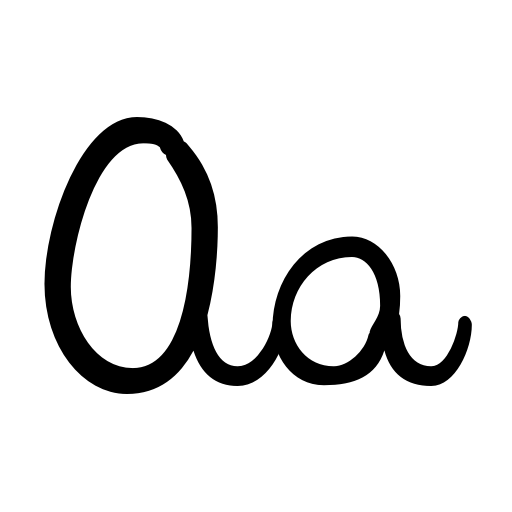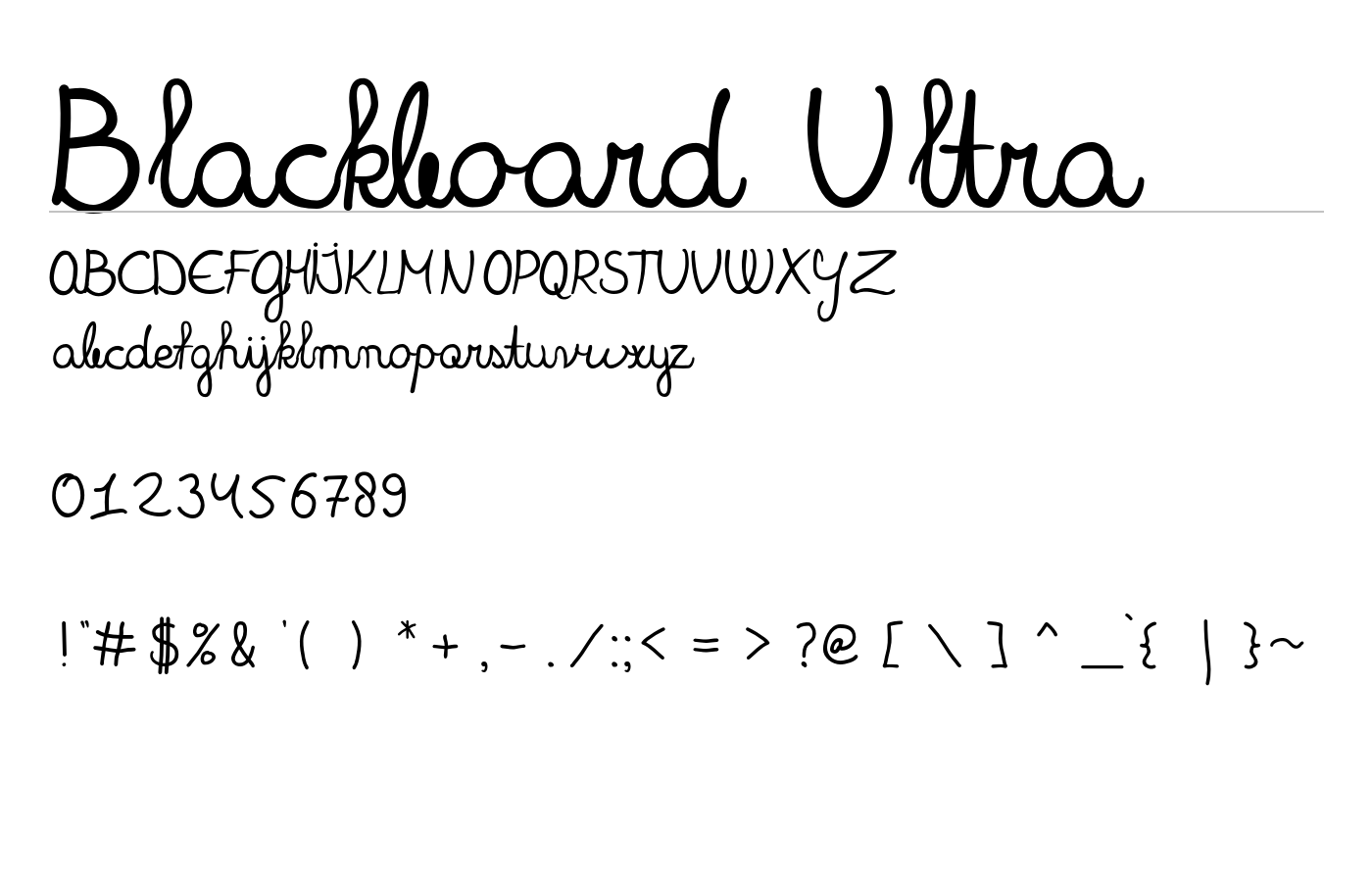
Blackboard Ultra is a playful, handwritten script font with a light weight and casual, organic feel. Its tall, narrow letterforms and unique loops give it a friendly and informal personality, making it ideal for educational materials, children's designs, or creative branding that seeks a personal touch. This font works best in headlines and logos where a whimsical, approachable style is desired.
Blackboard Ultra Font
About Blackboard Ultra Font